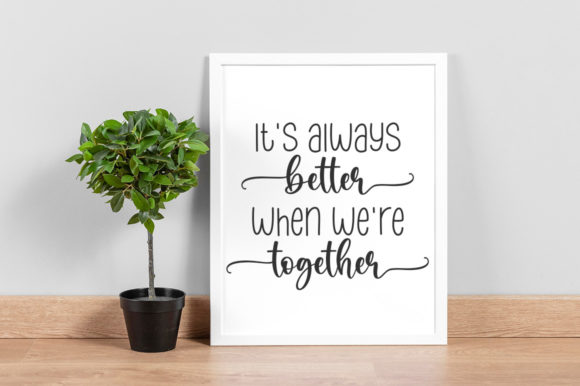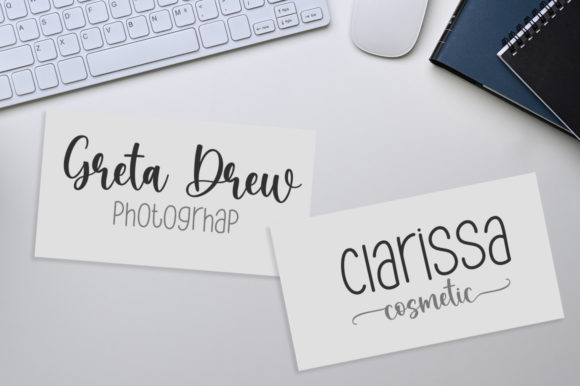
Be You Bravely Font
db-ku.com - Script & Handwritten -- Be You Bravely consists of two fonts designed to complement each other perfectly. Together or apart, these fonts are ideal for adding a chic and cheery touch to your crafts. Be You Bravely is PUA encoded which means you can access all glyphs and swashes with ease!